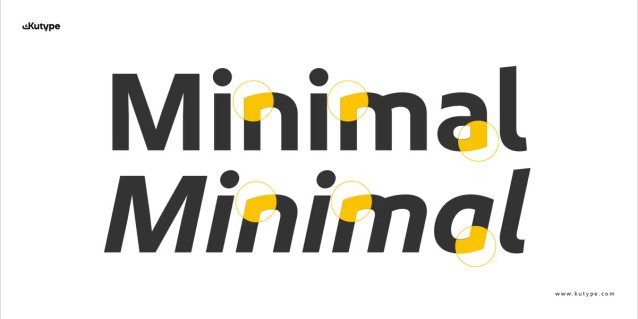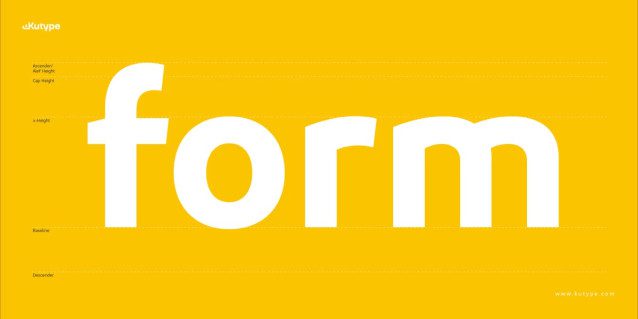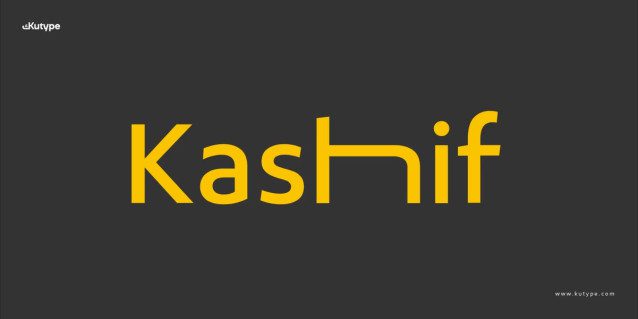
Kashif Font
Kashif Font is developed with a spurless approach, giving the letterforms a clean, contemporary appearance. Removing the spur makes the shapes appear more fluid and organic, while preserving a firm geometric framework.
The design prioritizes readability over complexity. Letters are properly proportioned to enable legibility across sizes. The modest contrast between stems and curves makes it easy to follow the shapes, especially in lengthier phrases.